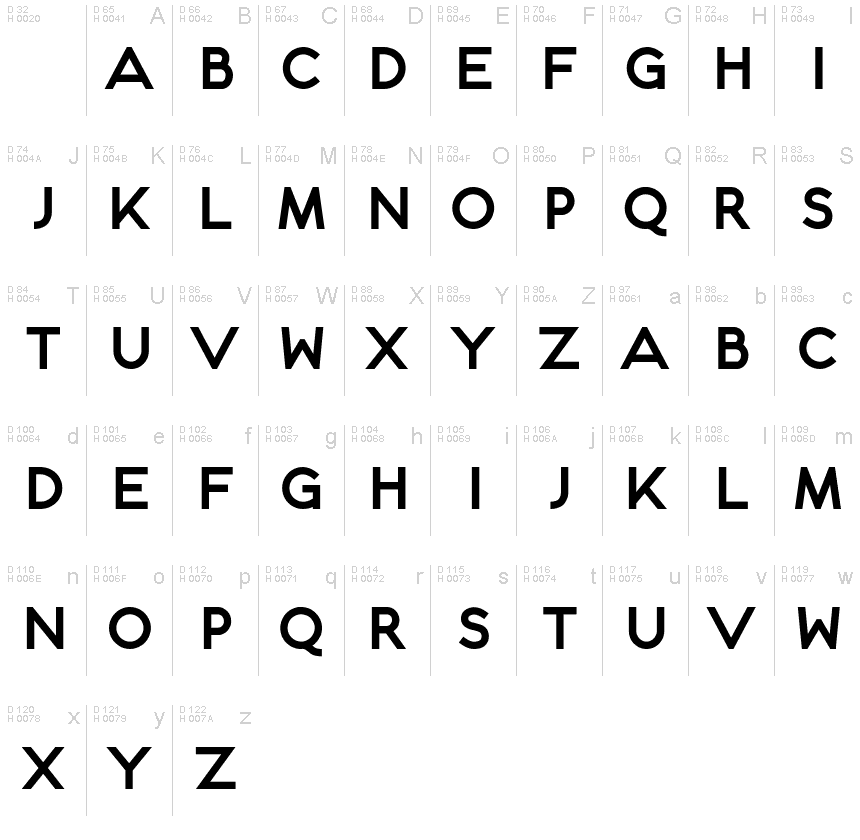
Mladen Black
Mladen Black, a sans serif font from the Mladen font family designed by Vladimir Nikolic, offers a sleek and modern aesthetic suitable for various projects. With its semi-expanded width, this font exudes confidence and professionalism.
Perfect for branding materials, such as logos and business cards, Mladen Black adds a touch of sophistication to any design. Its clean lines and bold presence make it an excellent choice for headlines in magazines or websites. Whether creating sleek advertisements or elegant invitations, Mladen Black is sure to captivate with its timeless appeal.
"Mladen" comes in Regular, Bold and Black!